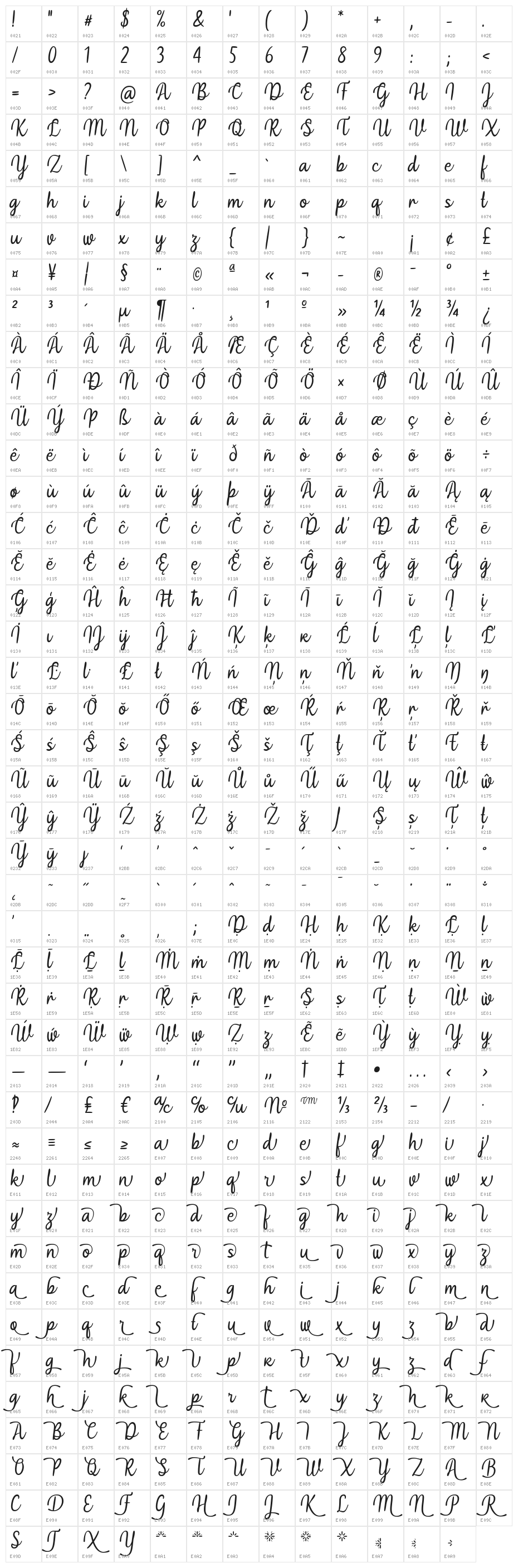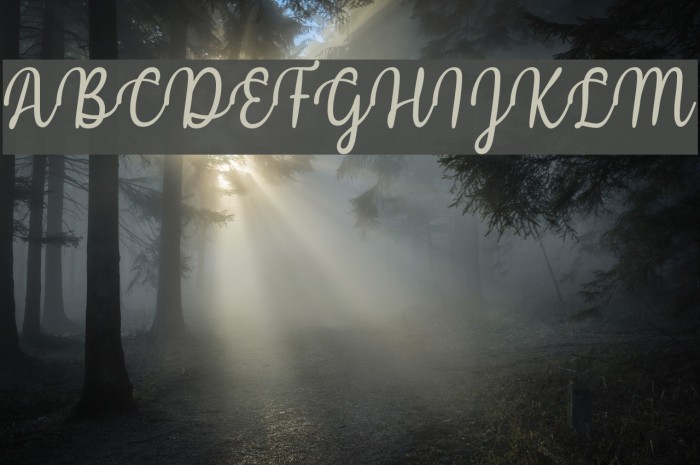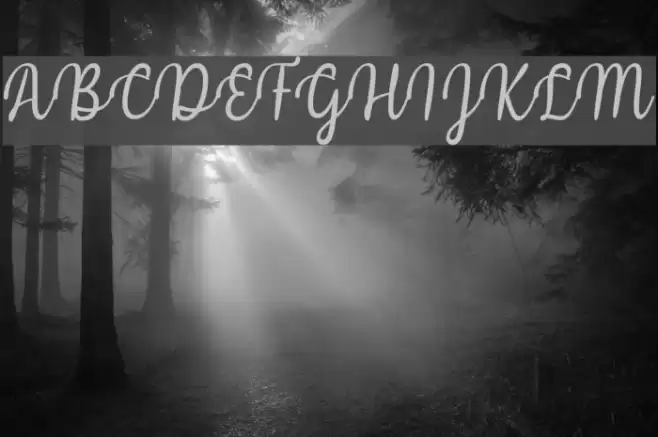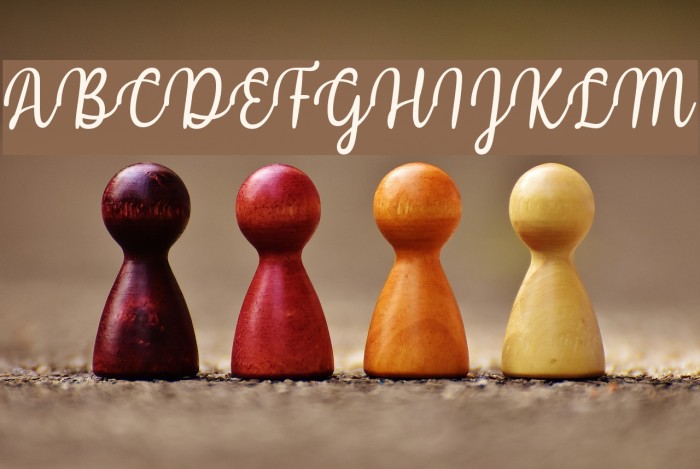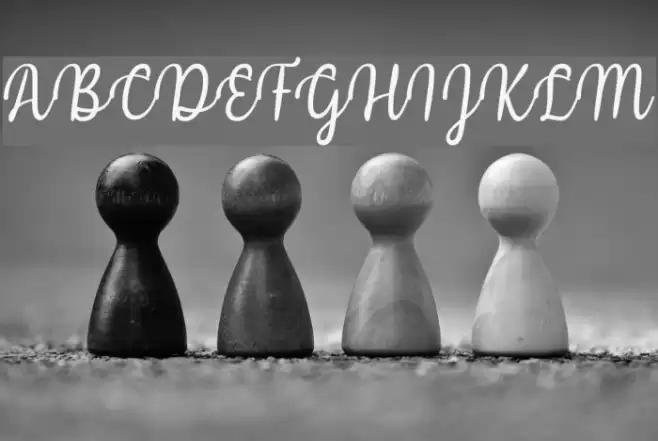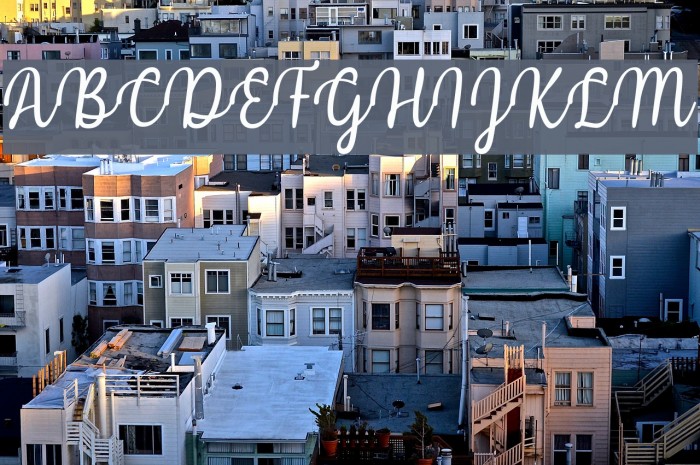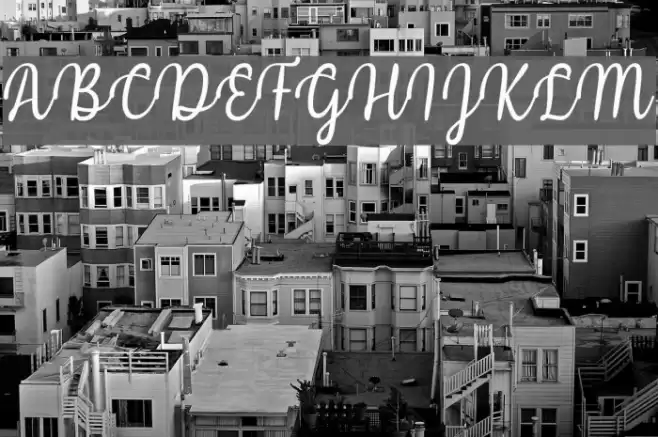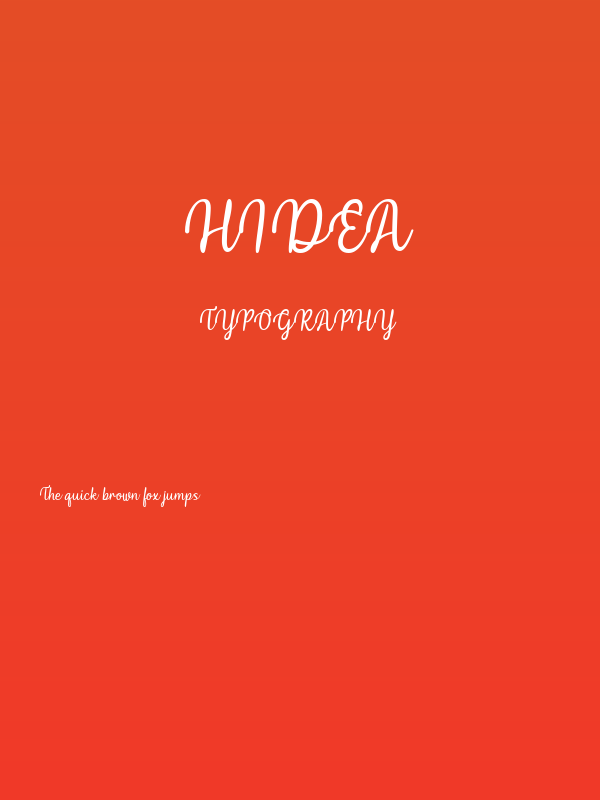
Hidea Font
Hidea Description
This font features a fluid and elegant script style, characterized by its smooth, flowing lines and cursive letterforms. The uppercase letters exhibit a graceful connection between strokes, while the lowercase letters maintain a consistent, handwritten appearance. The numerals are clear and legible, complementing the overall aesthetic. Special characters are designed with the same attention to detail, ensuring a cohesive look across all glyphs. The font's style is both modern and timeless, making it suitable for a variety of design applications.
| Proposed Projects | Ideal for wedding invitations, greeting cards, branding projects, and elegant logo designs. |